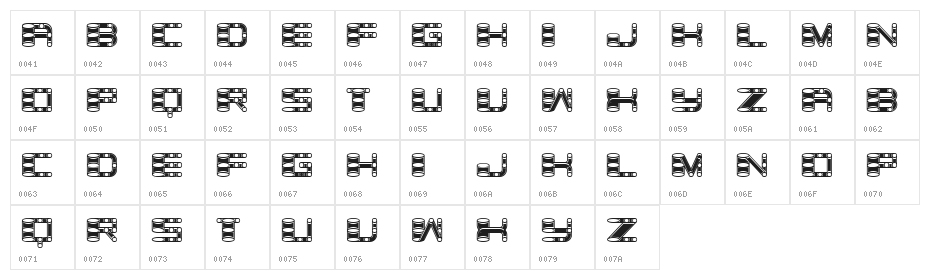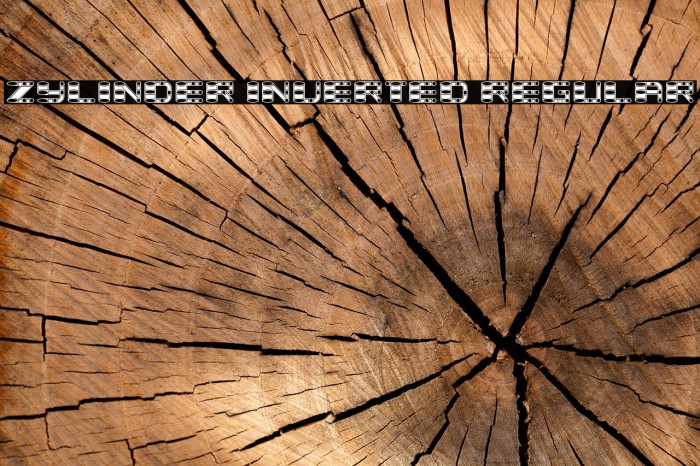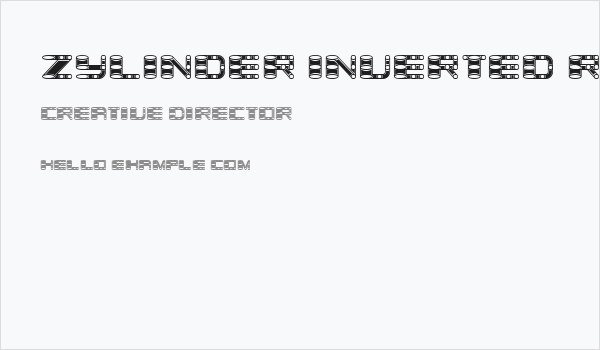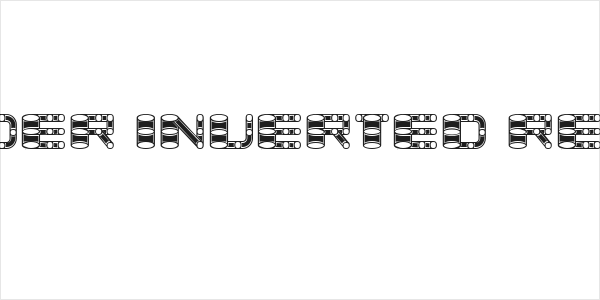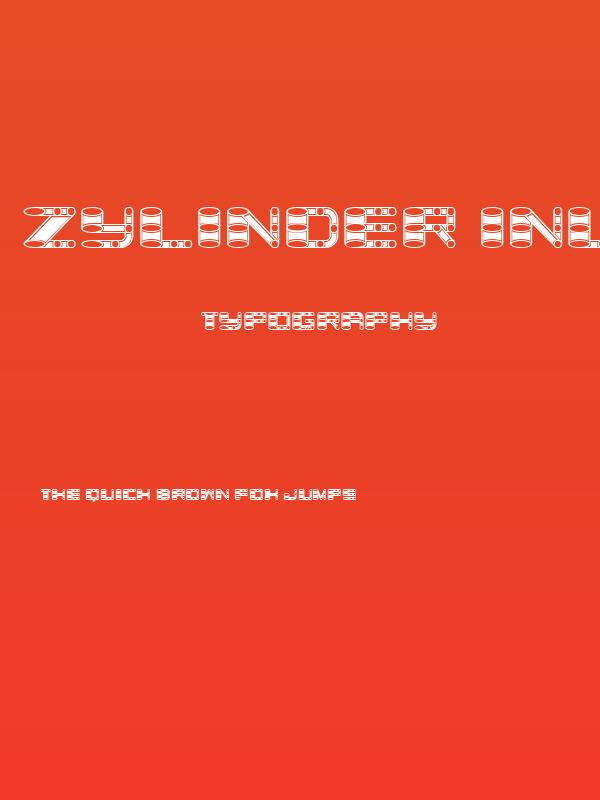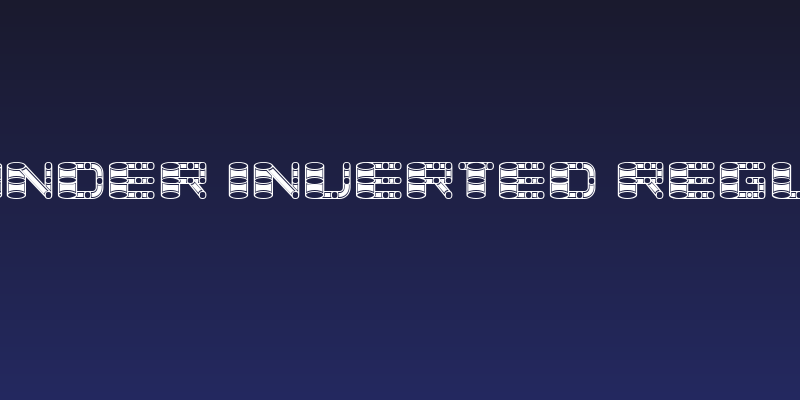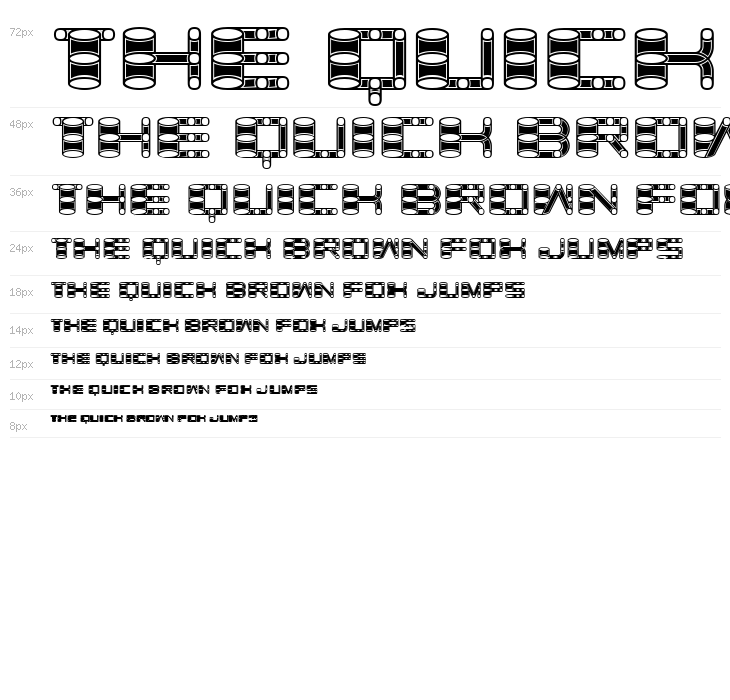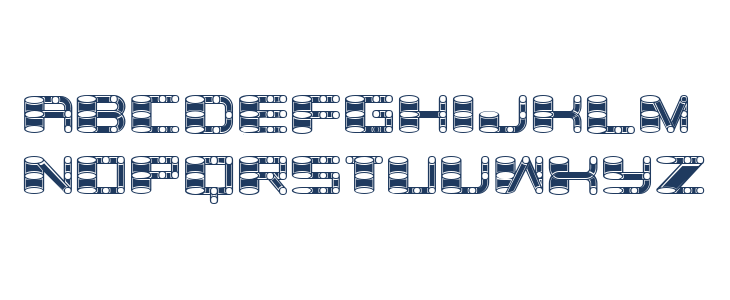
Zylinder Inverted Regular Font
Zylinder Inverted Regular Description
This font features a unique and playful design, characterized by its bold, tubular letterforms that resemble mechanical or industrial components. Each character is composed of a series of interconnected segments, giving it a three-dimensional appearance. The font is highly decorative, with a distinct pattern of alternating black and white sections within each letter, creating a striking visual effect. Its geometric structure and consistent line thickness contribute to a modern and futuristic aesthetic. The font is best suited for creative and eye-catching designs where a strong visual impact is desired.
| Overall Style | Modern, Futuristic |
| Proposed Projects | Ideal for posters, logos, video game graphics, and any project requiring a futuristic or industrial theme. |